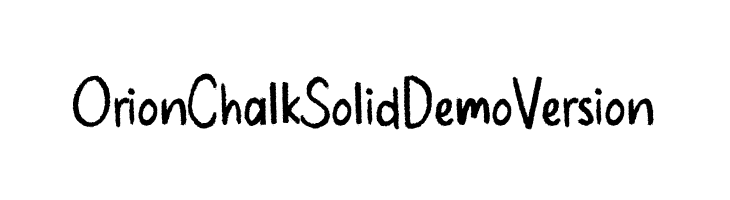
A futuristic, circuit-inspired decorative font with bold geometric designs.
A textured, chalk-like font with a dynamic, handwritten style.
A decorative, distressed font with circular embellishments for a playful yet edgy look.
A playful, chalk-like font with bold, textured strokes.
A playful, handwritten font with a chalk-like texture.
A bold, brush-stroke font with an energetic and rebellious style.
A bold, graffiti-inspired font with sharp, jagged edges and a dynamic, edgy style.
A playful, textured font with a beach-inspired design.
A playful, hand-drawn font with a chalk-like appearance, perfect for creative projects.
A chalk-inspired, hand-drawn font with a textured, playful style.